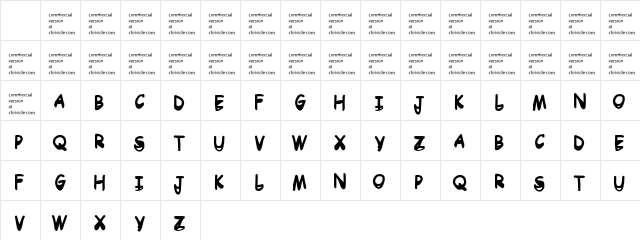
Complete Dr Toboggan Regular glyph index. Displaying only characters natively supported by Dr Toboggan Regular font.
Dr Toboggan is a composed and adaptable typeface that performs quietly and consistently across a wide range of design contexts.
Who designed the Dr Toboggan Regular font?